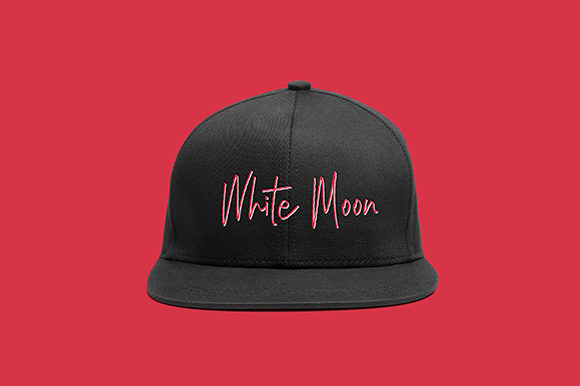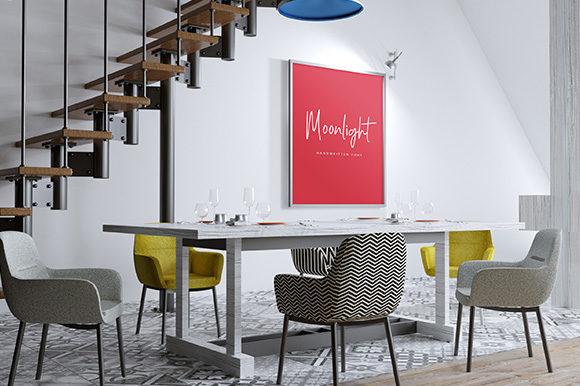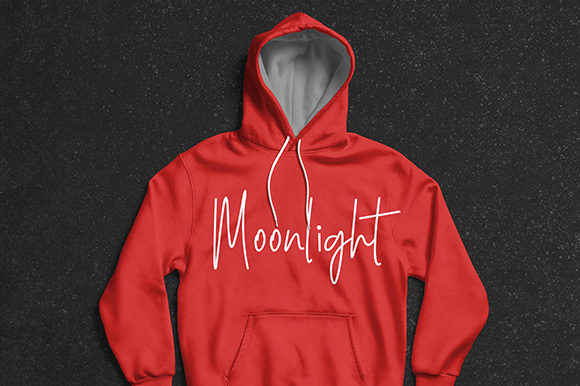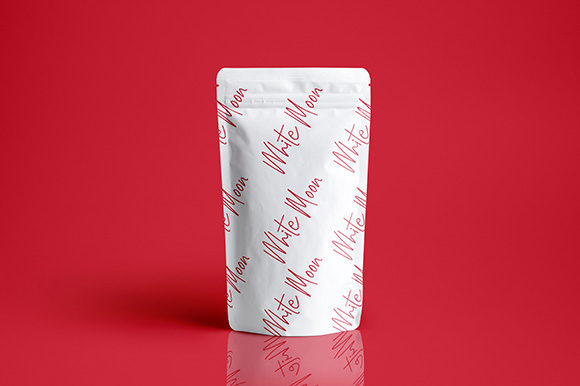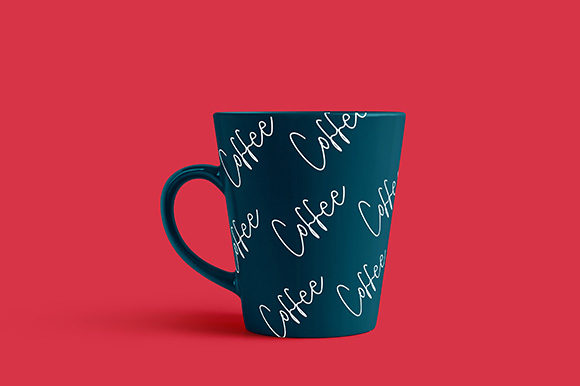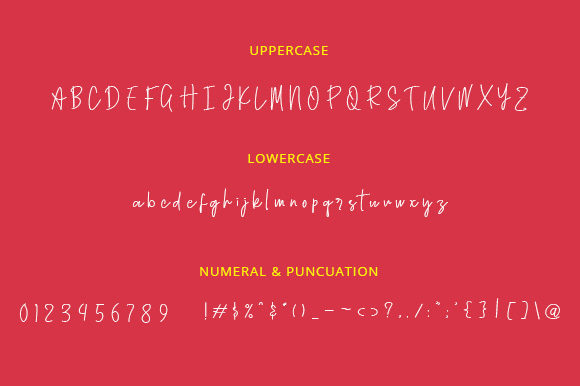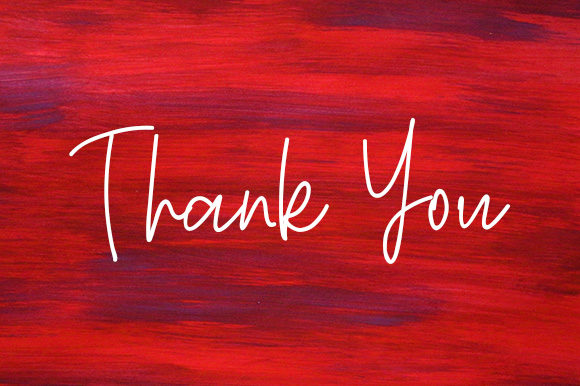
The White Moon Font
About The White Moon Font
The White Moon feels equally charming and elegant. This stunning script font is a stylish homage to classic calligraphy. It features a varying baseline, smooth lines, gorgeous glyphs and stunning alternates. Get inspired by its authentic feel and use it to create gorgeous wedding invitations, beautiful stationary art, eye-catching social media posts, and cute greeting cards.